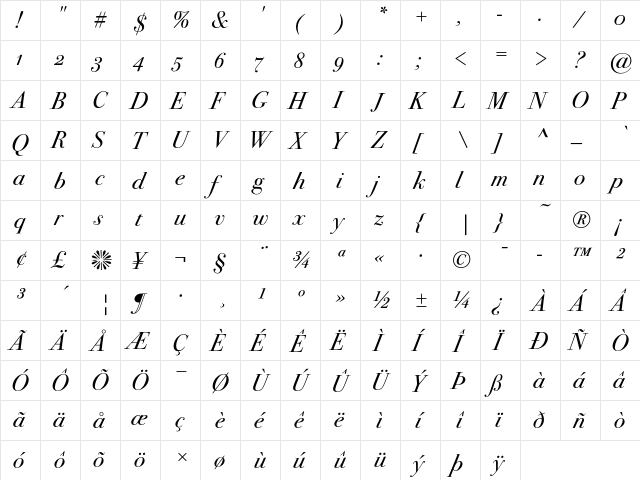
Bodoni Seventytwo ITC Book Italic OS
Design Context for Bodoni Seventytwo ITC Typeface
Bodoni Seventytwo ITC takes a measured approach to typography — its balanced proportions and neutral character make it a reliable workhorse for both digital and print work. The dynamic lean of this cut emphasises speed and emphasis in any layout.
Pro Tip: Try Bodoni Seventytwo ITC for annotation and caption copy alongside an upright companion — the contrast in angle creates a dynamic but ordered typographic system.